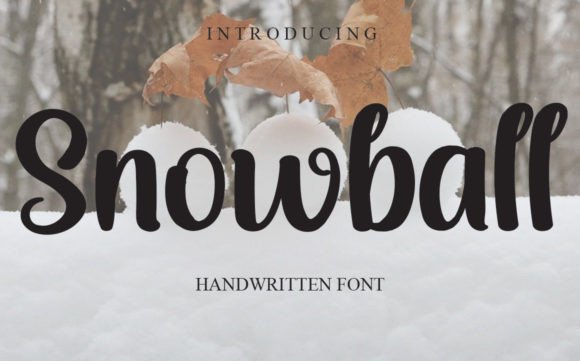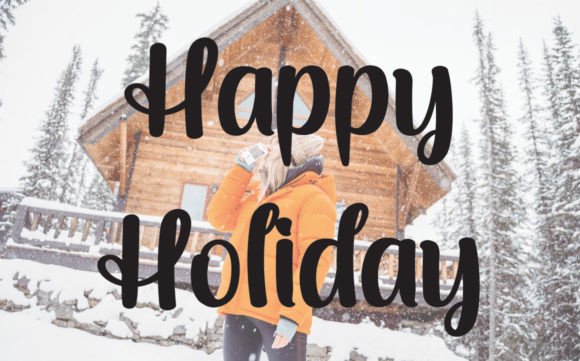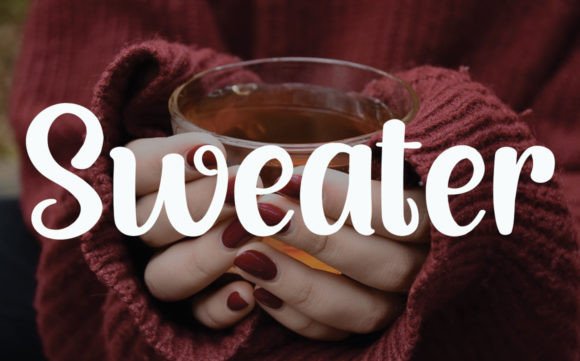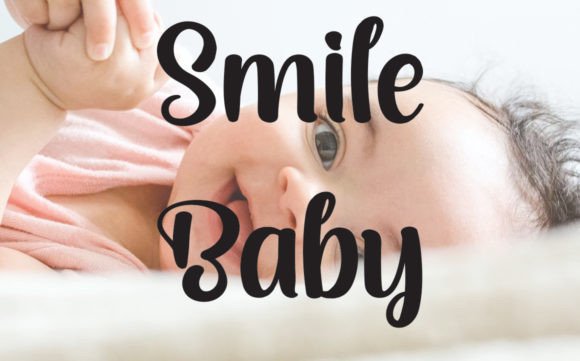
About Snowball Font Download
The Snowball Font Download is a sweet and delicate handwritten script created to add elegance and charm to your designs. With dainty strokes and joyful handwritten flow, this font captures a romantic and timeless energy. Whether you are designing wedding invitations, greeting cards, or digital content, Snowball adds a handwritten touch that makes your projects shine.
A Script with Romantic Elegance
The Snowball script font blends graceful handwritten details with clean balance. As a result, it feels timeless, versatile, and stylish. Furthermore, it adapts seamlessly between stationery projects and branding campaigns, making it useful for hobbyists and professionals alike.
Handwritten fonts always provide warmth and intimacy. The Snowball Font is ideal for wedding invitations, thank you notes, birthday cards, and festive greetings. Because of its elegant handwritten character, each design feels heartfelt and polished. In addition, it ensures your stationery projects leave a lasting impression.
Branding and Logo Design with Snowball Font
Typography sets the mood for a brand. The Snowball handwritten font works beautifully for boutique logos, product packaging, and promotional projects. Its romantic handwritten strokes create an approachable yet professional look. Therefore, it is especially effective for lifestyle, fashion, and wedding-related industries.
Posters, Titles, and Editorial Designs
The Snowball Font Download also shines in posters, magazines, banners, and book covers. It stays highly legible across all sizes while adding handwritten sophistication. Consequently, it is a dependable choice for designers who want elegance combined with readability.
In today’s digital space, fonts must work seamlessly across platforms. The Snowball typeface integrates perfectly into Instagram posts, Pinterest graphics, YouTube thumbnails, and blogs. Because of its dainty handwritten energy, it ensures that digital designs look engaging, romantic, and modern.
Why Designers Choose Snowball Typeface
Designers enjoy fonts that balance creativity with usability. The Snowball handwritten script maintains its delicate personality while staying clear and versatile. This makes it a great choice for both professionals and hobbyists. Moreover, its timeless handwritten charm ensures it will remain trendy for years to come.
Add Romantic Beauty to Your Projects Today
If you’re looking for a handwritten script that feels delicate, sweet, and versatile, the Snowball Font Download is the perfect choice. From invitations and greeting cards to posters, branding, and digital content, it enhances every design with handwritten romance. Finally, download Snowball today and let your work glow with elegance and charm.